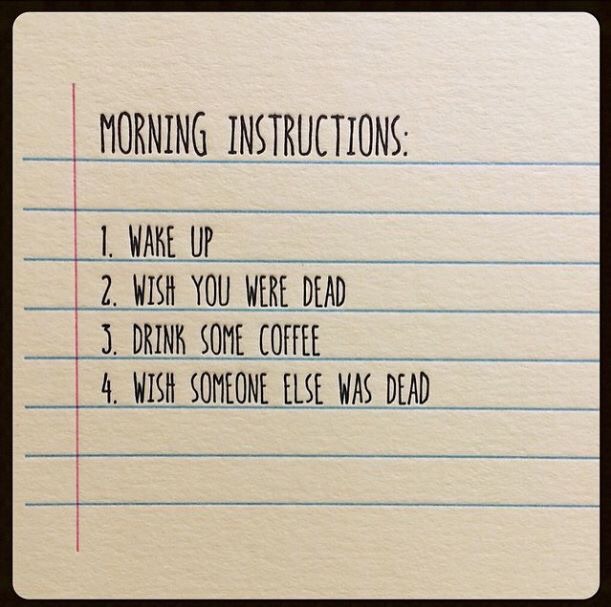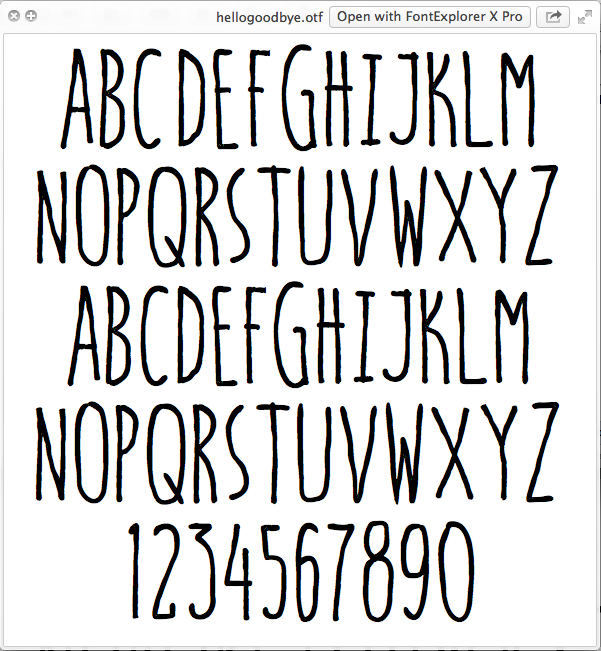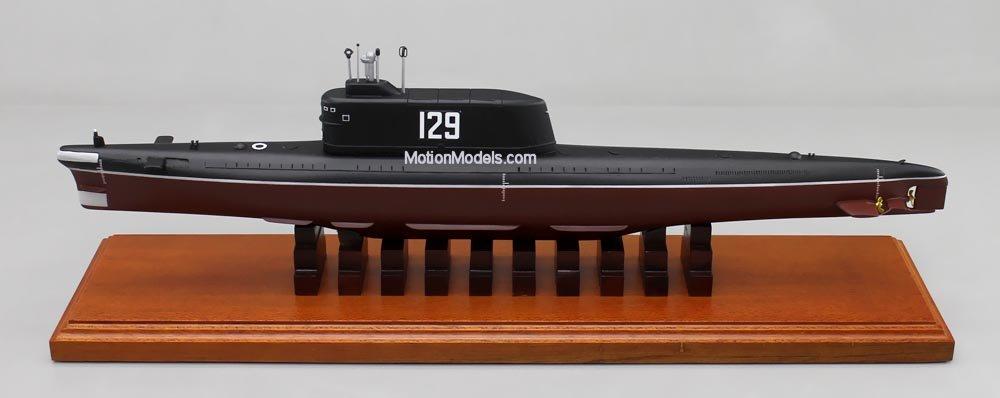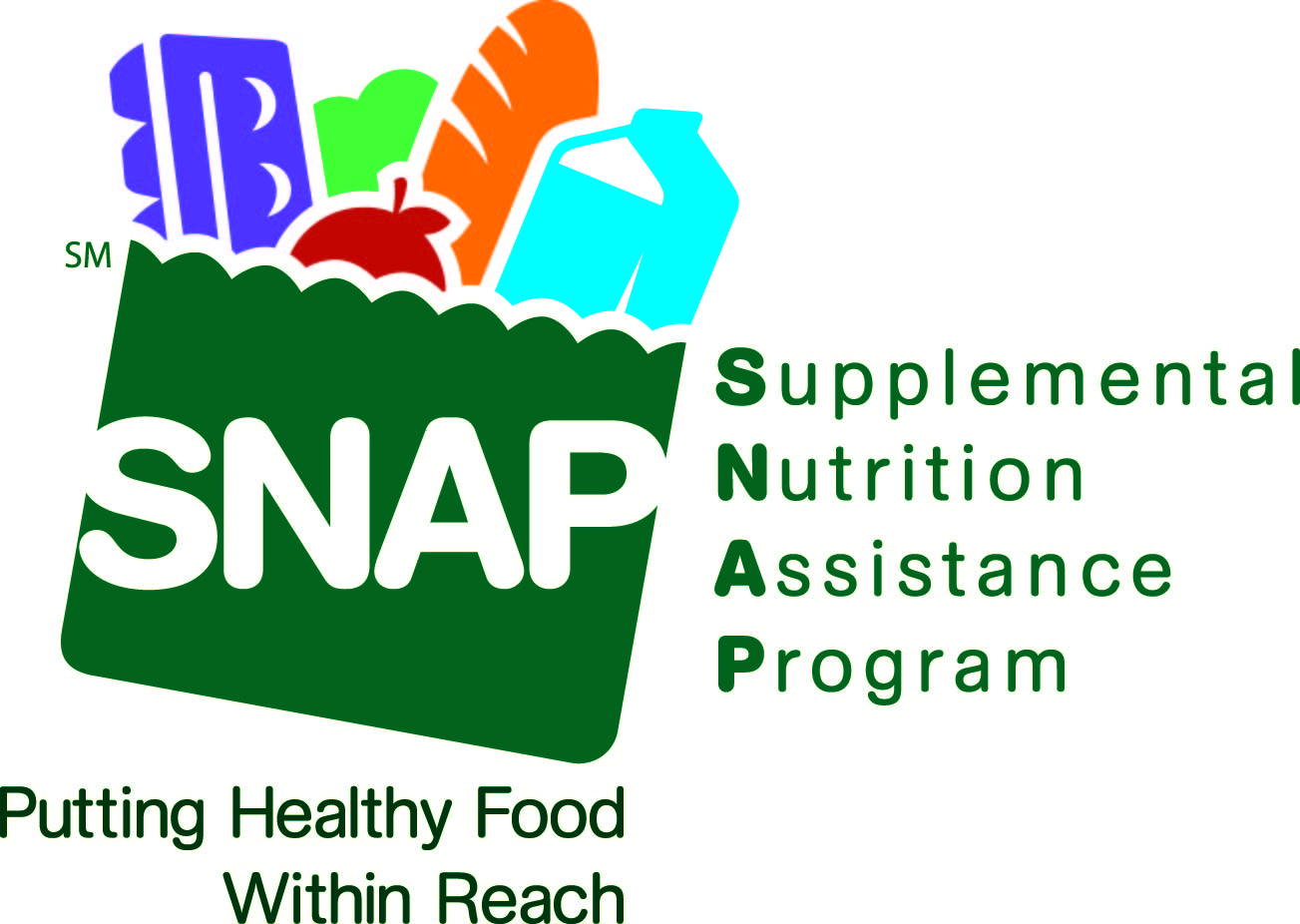
Hi all. I've been struggling to identify this one. It's bugging me because I feel I've used or had to find it before at some point.
The closest I've found is a font called Sari, but it's not quite right.
EDIT: Found It! It is called FF Dax Pro Medium.
How to Identify an Arabic Font?
Hello might be, this is the right place to get an information about "Identifying Arabic Font".
Can anyone identify the font in this image? It looks fairly standard.
Does anyone know what the font is for the SNAP section of this logo?
Fuzzy sample…
…for which I can only apologise. I know I recognise this font — in fact, I thought I had it installed but apparently not! Can anyone step in with an ID? The sample's too fuzzy for WhatTheFont and various searches have been unproductive.
EDIT: Got it. It's Bradley Pro.
help identifying the font used on motorcycle BMW R1200GSA (2014)
Could anyone help me identify this one?
So, I need to make some soviet inspired textures, and they include numbers.
Do you know of any font similar to these numbers shown? (the "210" and "129")
Can you identify this font?
Can anyone name this font? I've tried the sites that search with images but they don't want to work from my phone. Won't be home for a while.
The font is hello-goodbye and you can get it here.
It's Gotham. Made by Hoefler & Co.
WOW, am I glad I stumbled upon this topic. This is my own CD I did back in 1996 and I never found out what font this is for my own name on the CD.
What is it? Please. It is obviously italicized and shadowed...perhaps some sort of custom font or is it standard?
I think it is one of the best work with graphic design, There isn't need to discover font name. He just made a 3D look with simple font like Arial etc.